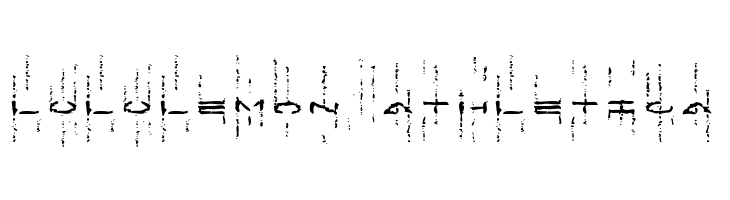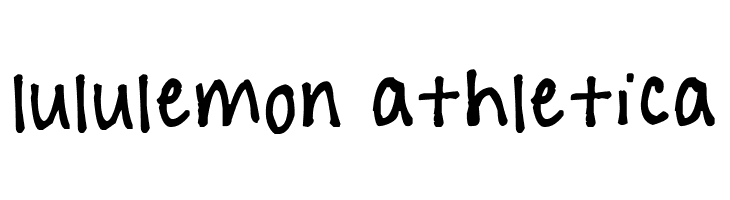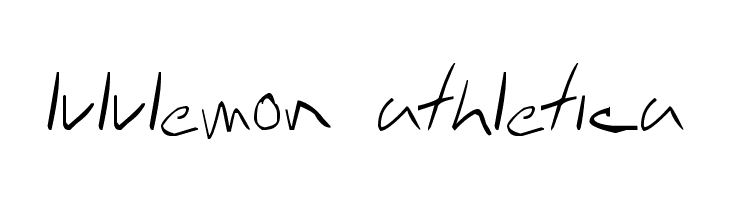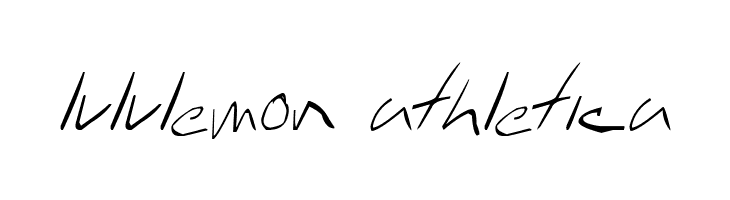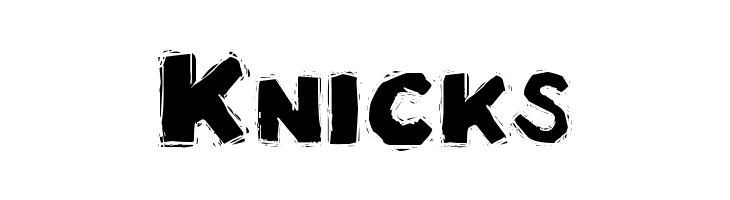
( Fonts by Camilla Bertoni )
A whimsical, hand-drawn font with thin, elongated strokes and a playful style.
( Fonts by www.exclamachine.com )
A bold, distressed font with a rugged, hand-crafted appearance.
( !Exclamachine Type Foundry - exclamachine.com/ )
A dynamic, handwritten font with fluid and irregular strokes.
( !Exclamachine Type Foundry - exclamachine.com/ )
A bold, energetic handwritten font with a playful and expressive style.
( !Exclamachine Type Foundry - exclamachine.com/ )
A bold, italic, handwritten font with dynamic and energetic strokes.
( !Exclamachine Type Foundry - exclamachine.com/ )
A dynamic, handwritten font with fluid strokes and a playful, sophisticated flair.
( Fonts by www.exclamachine.com )
A bold, stencil-like font with geometric and industrial design elements.
( Fonts by www.exclamachine.com )
A bold, geometric font with blocky, angular letterforms and tight spacing.
( Fonts by www.exclamachine.com )
A futuristic, distressed font with a unique, fragmented style.